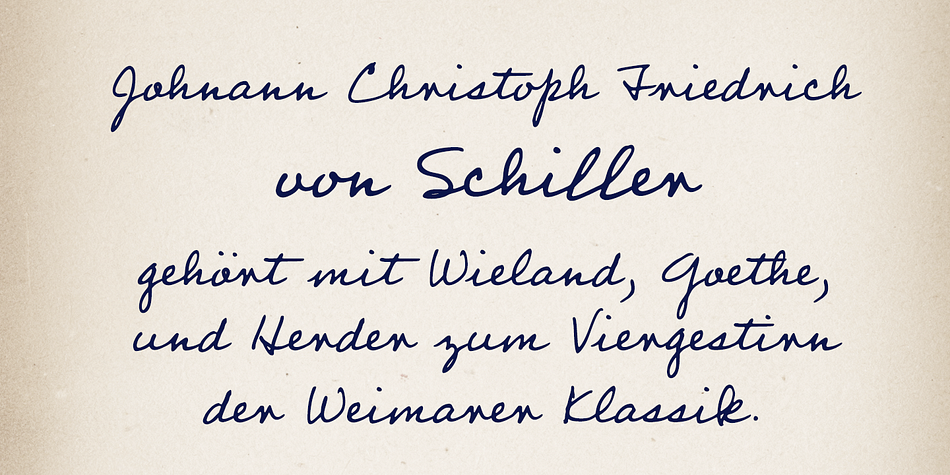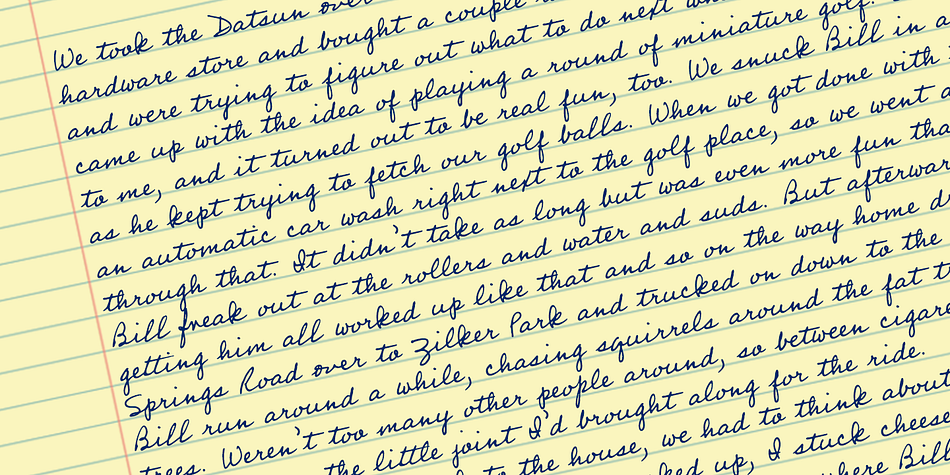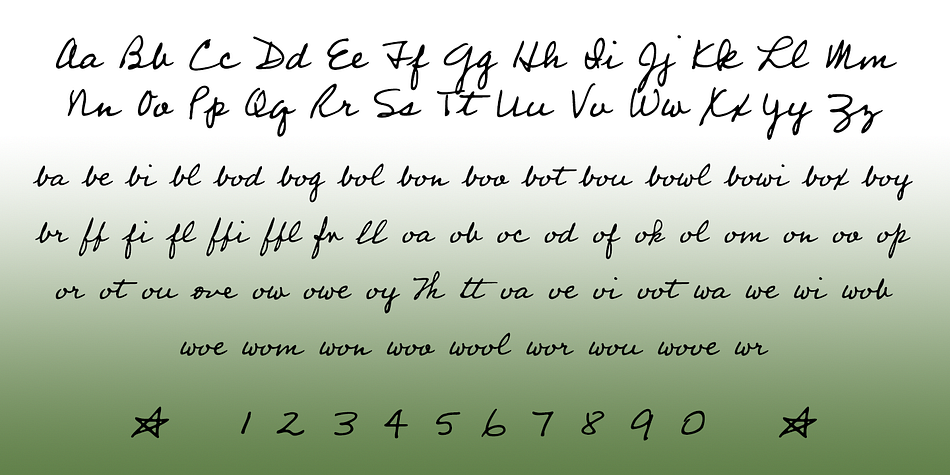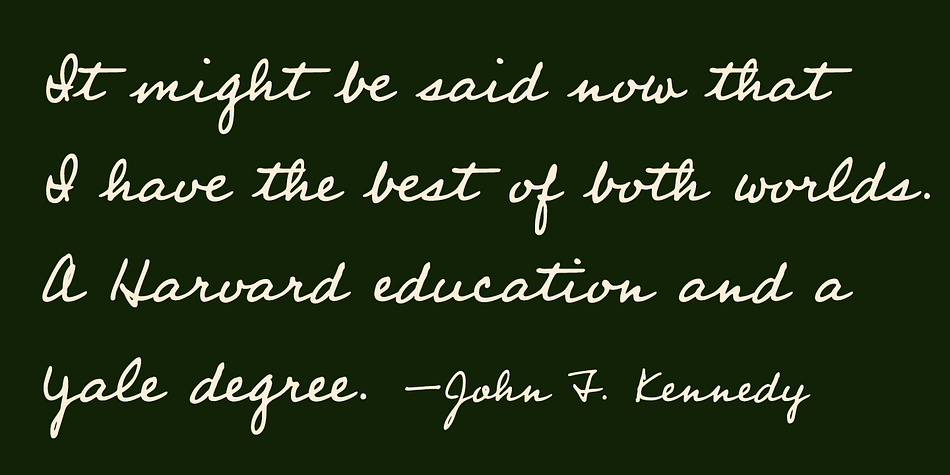
Professor is a script font published by Three Islands Press.
My father, Leslie Willson, had a long, distinguished career as a professor of Germanic languages—with a special interest in contemporary German arts and letters. (His DIMENSION literary magazine, 1968–1994, is famous in the field.) About the time he retired from teaching, he also retired from writing in longhand after I turned his legible script into a digital typeface. Professor is a slightly modified version of my father’s cursive hand, a good, strong, helpful, friendly, personable hand—much like the man himself. OpenType features include numerous ligatures that more closely match authentic cursive script, as well as support for Central and Eastern European Languages.